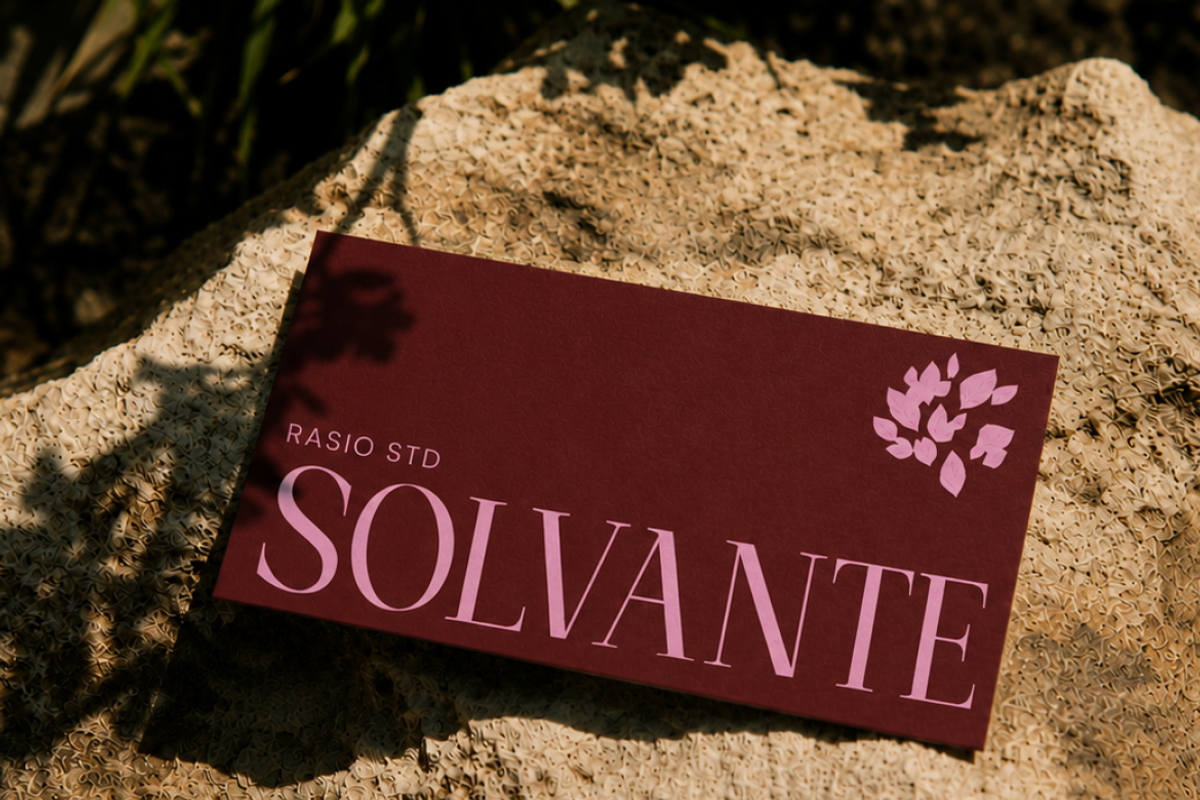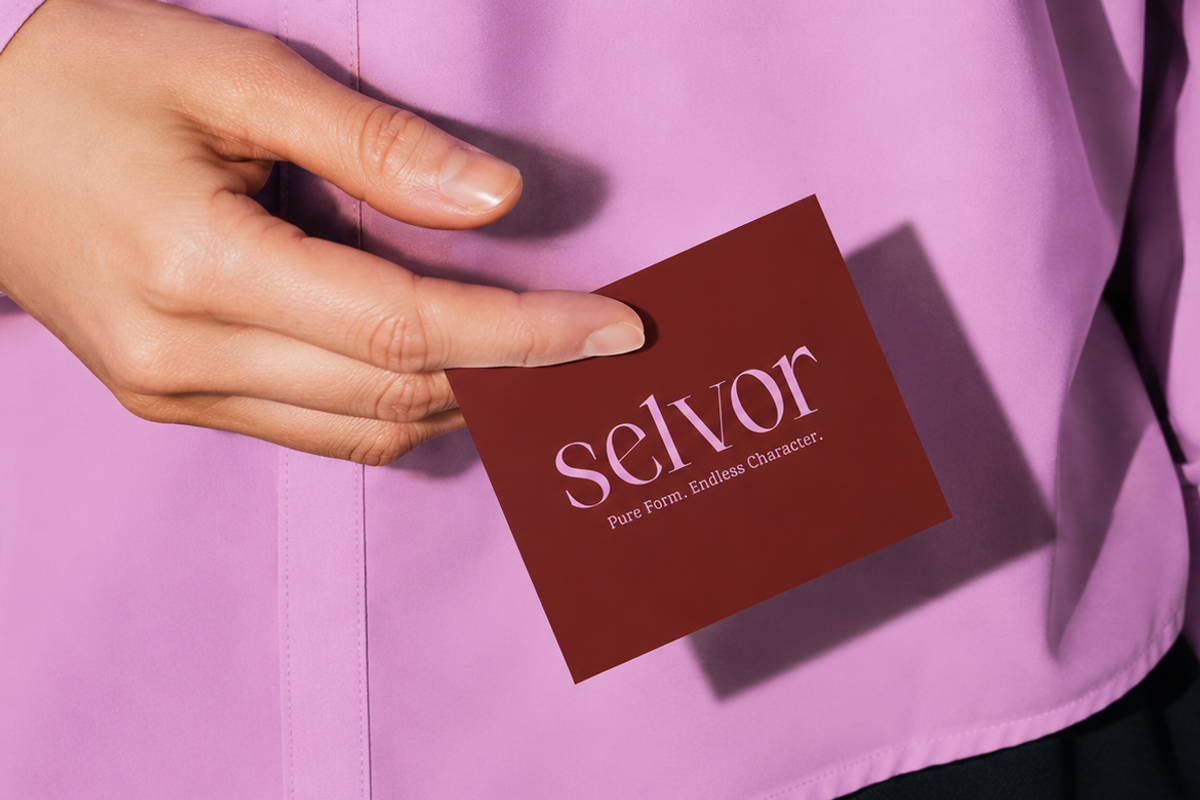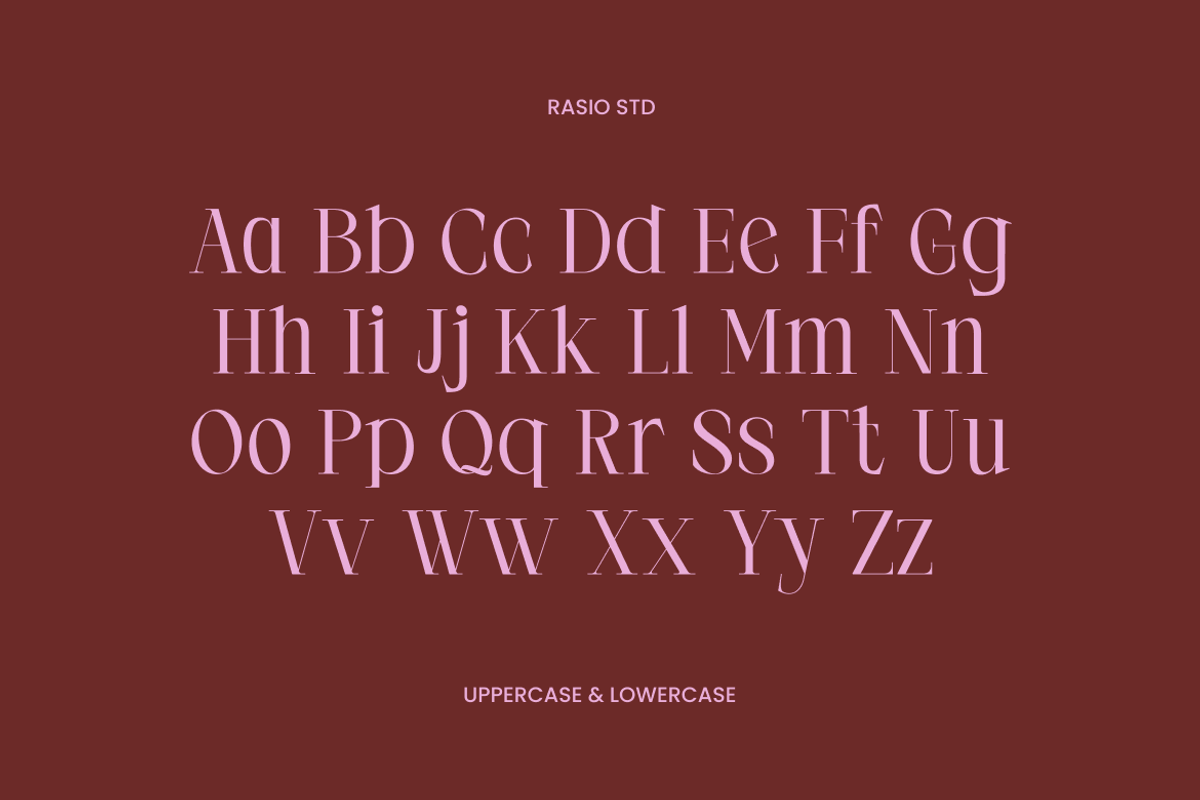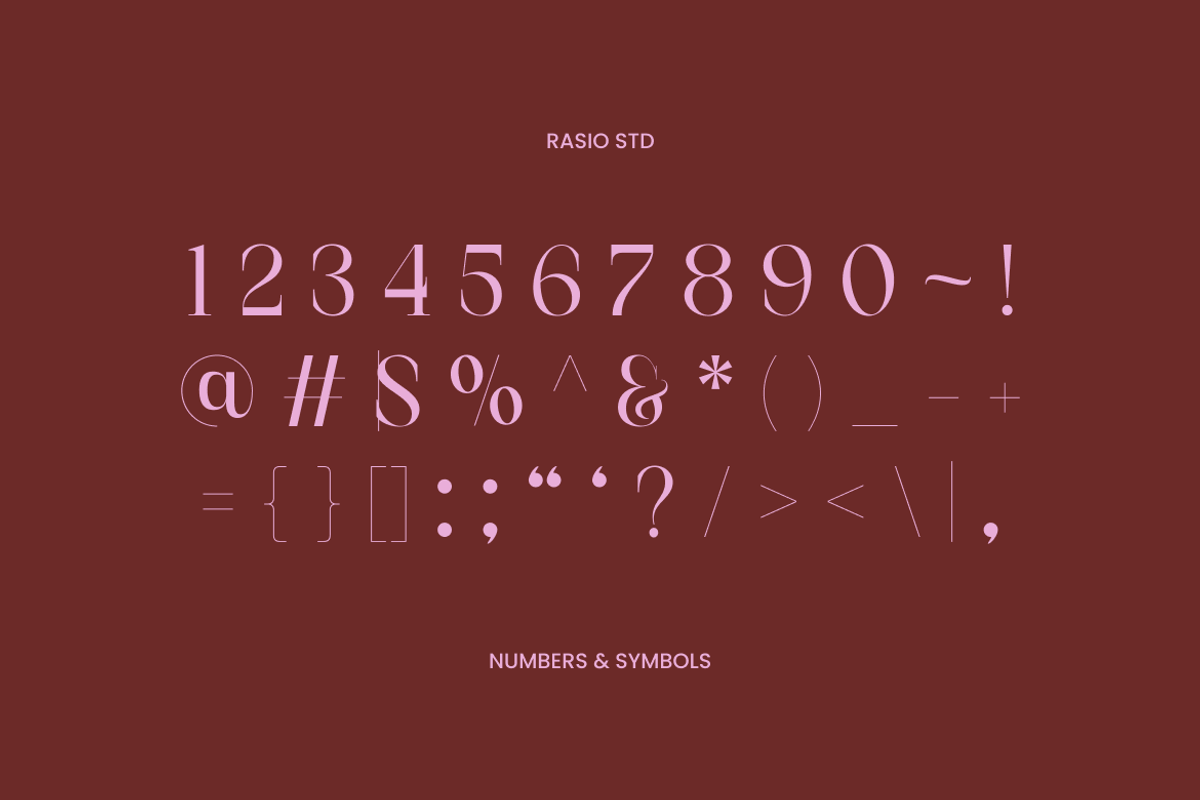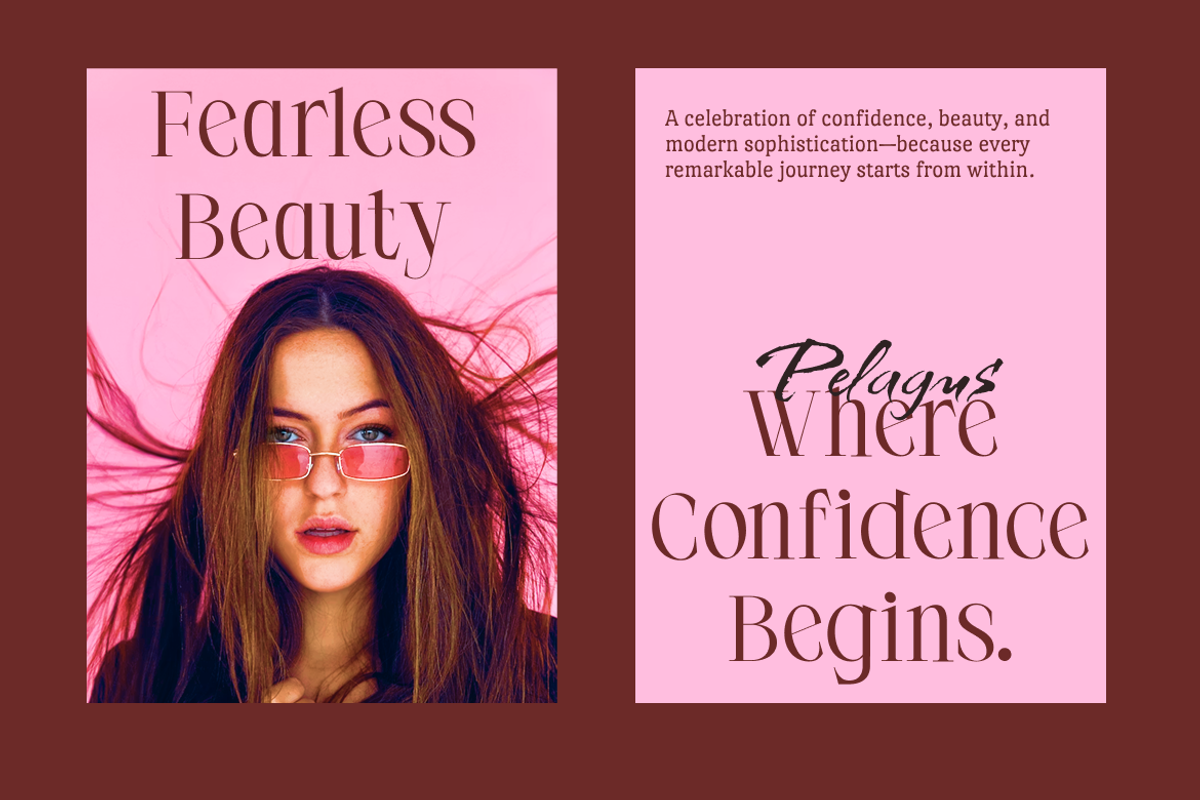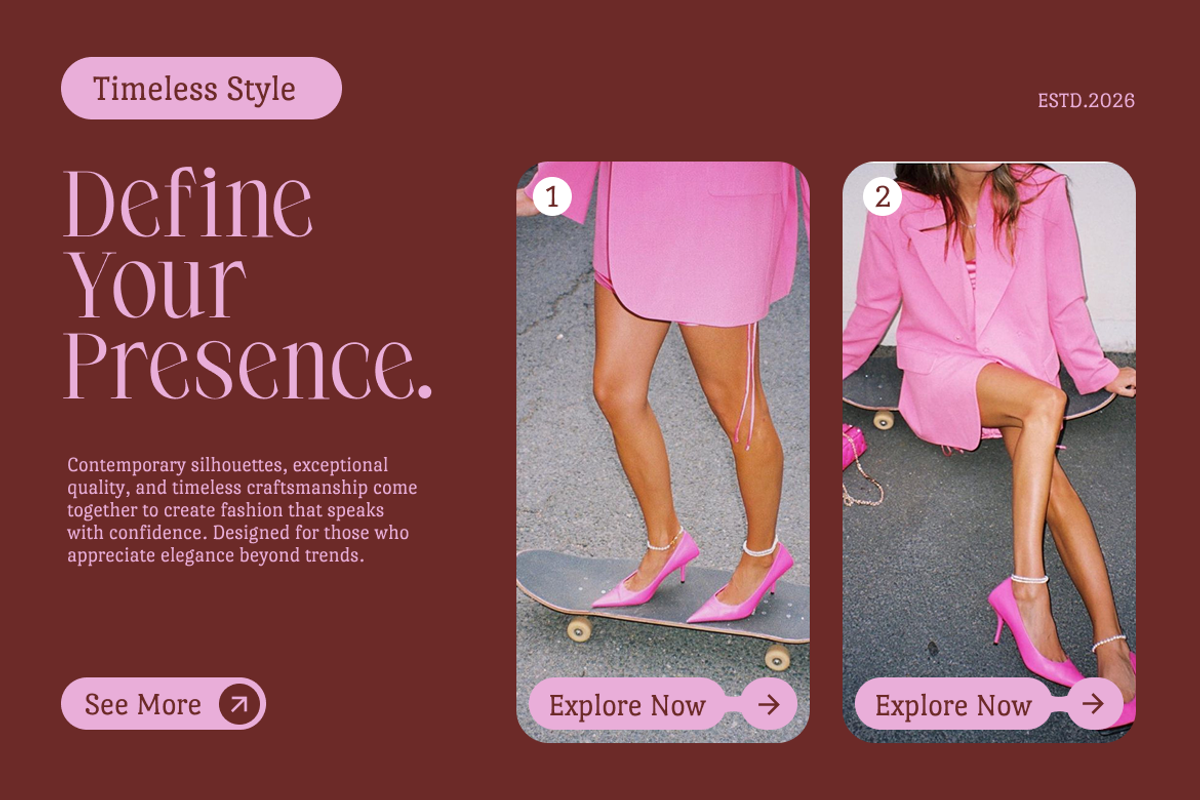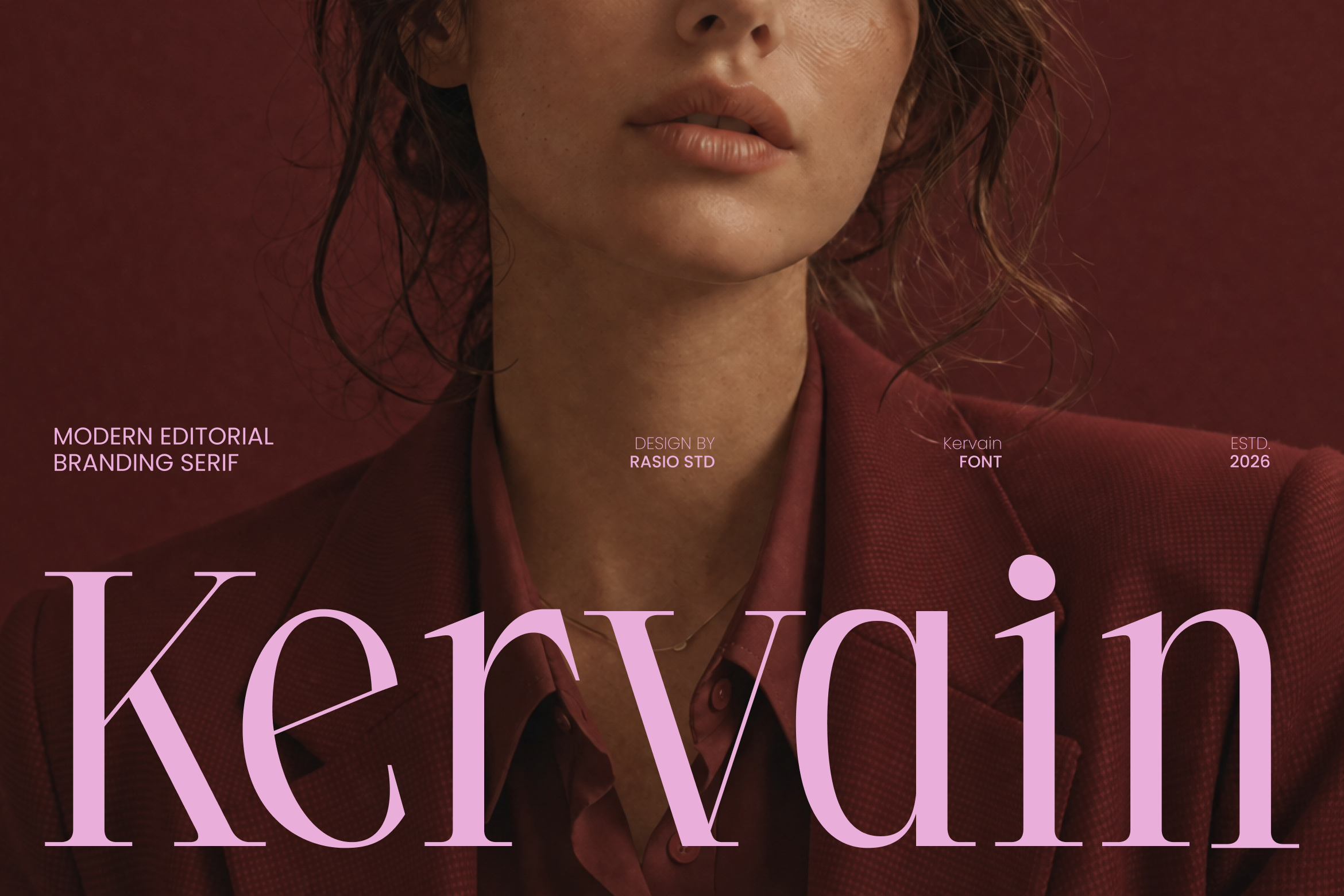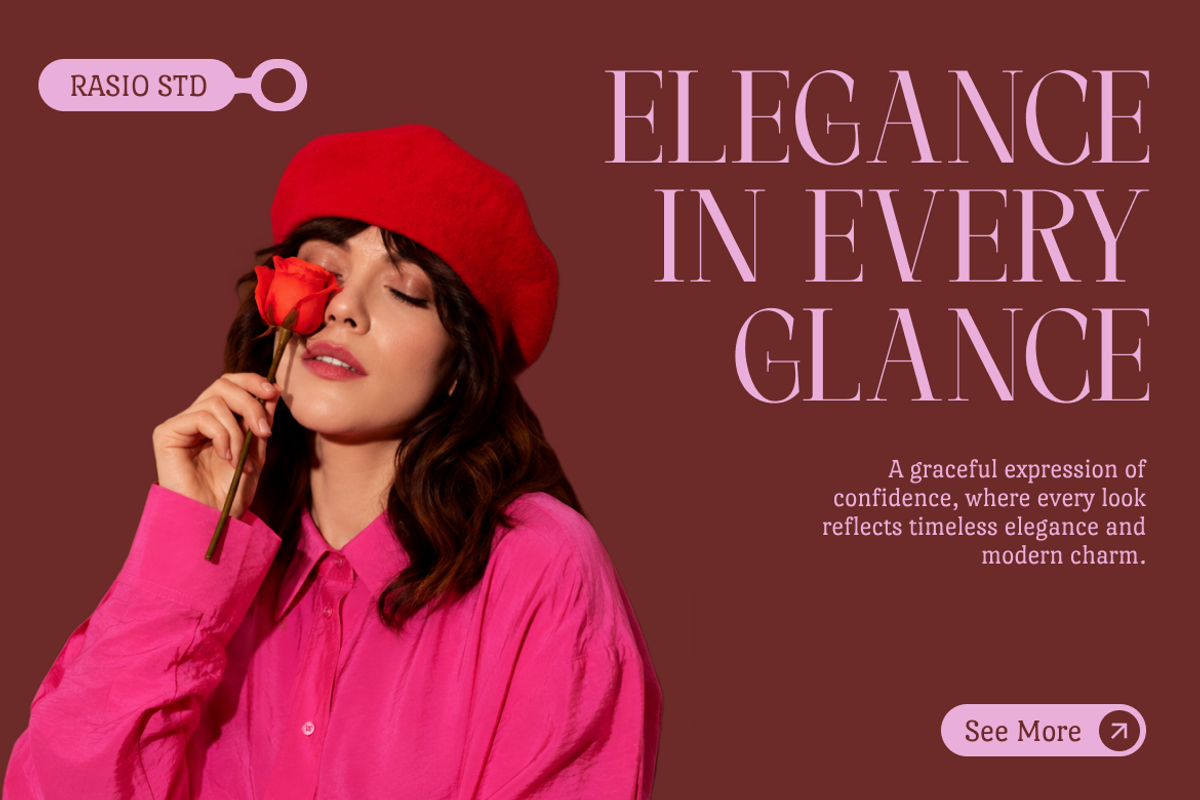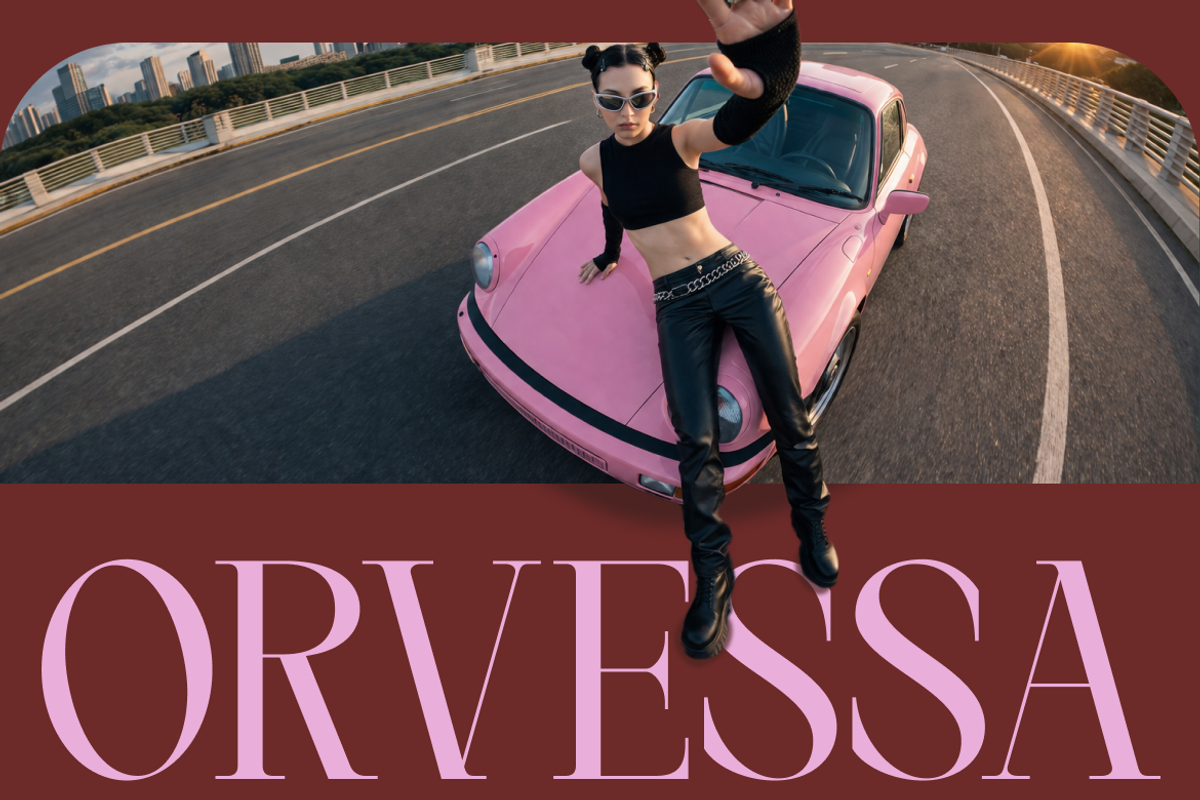
Kervain Modern Branding Serif Font
Kervain Modern Branding Serif Font is a refined modern editorial serif font designed to express luxury, confidence, and timeless sophistication. Featuring elegant high-contrast strokes, graceful curves, and elongated proportions, this typeface delivers a polished visual identity that elevates every composition. Its balanced structure creates exceptional readability while maintaining a distinctive editorial personality, making it ideal for premium branding and fashion-inspired typography. Kervain includes uppercase and lowercase characters, numerals, punctuation, ligatures, providing extensive flexibility for professional designers.
Inspired by luxury magazines, couture branding, and contemporary minimalist aesthetics, Kervain blends classic serif craftsmanship with modern refinement. Every character is carefully designed with delicate transitions, sharp details, and generous spacing to create an effortless sense of elegance. Whether used for logos, headlines, packaging, or editorial layouts, the font communicates exclusivity and premium quality through its graceful letterforms. Perfectly suited for luxury branding, fashion campaigns, beauty products, hospitality, lifestyle publications, wedding stationery, and premium visual identities, Kervain delivers a sophisticated typographic experience across both print and digital media.
Elegant editorial serif with refined high-contrast letterforms
Graceful curves paired with slender stems for a sophisticated appearance
Delicate wedge serifs that enhance luxury and timeless character
Balanced proportions with generous counters for effortless readability
Fashion-inspired typography designed for premium branding and editorial headlines
Luxury brand identities for fashion, beauty, and lifestyle businesses
Editorial magazines, lookbooks, and premium book cover designs
Cosmetic packaging, perfume labels, and high-end product branding
Wedding invitations, event stationery, and elegant signature designs
Social media campaigns, luxury marketing materials, and sophisticated visual branding
Screen-optimized kerning for responsive web design
Supports numerals, punctuation, and extensive symbol set
Define your brand with Kervain and let every headline express elegance and refined luxury.